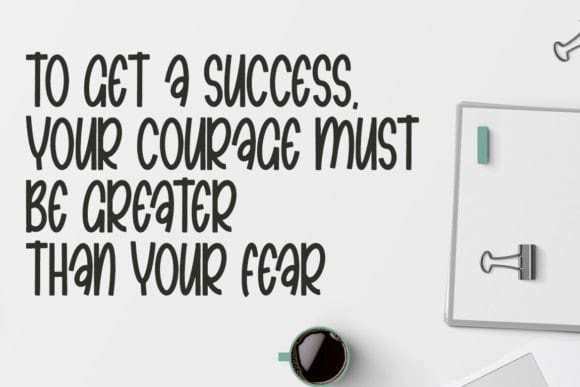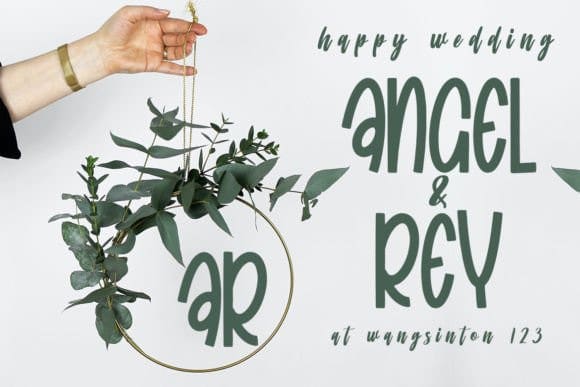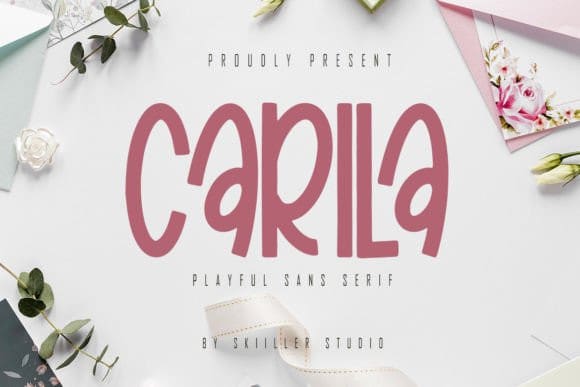
Carila Display Font
Carila Display Font is a stylish sans serif font that has an elegant, classy and modern look. It’s a great font for fashion, signatures, logos, magazines, social media posts, and more!